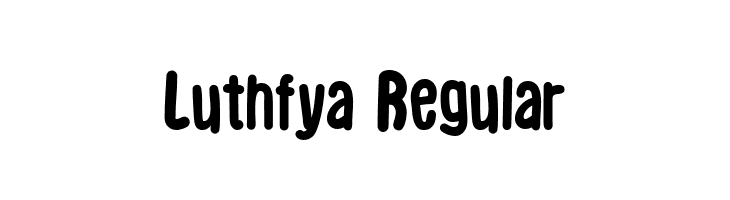
A slanted, elegant script font with flowing, interconnected letters.
An elegant script font with high contrast and ornate flourishes.
A bold, high-contrast font with geometric and elegant elements.
A playful, bold font with rounded edges and a friendly style.
A lively handwritten font with bold, expressive strokes and a modern, playful style.
A bold, futuristic font with sharp, angular edges and a mechanical aesthetic.
A bold, futuristic font with angular, slanted characters and a mechanical aesthetic.
A bold, geometric font with a modern, angular design.
An elegant and fluid script font with graceful curves and a handwritten style.
A flowing, cursive script font with elegant loops and swashes.